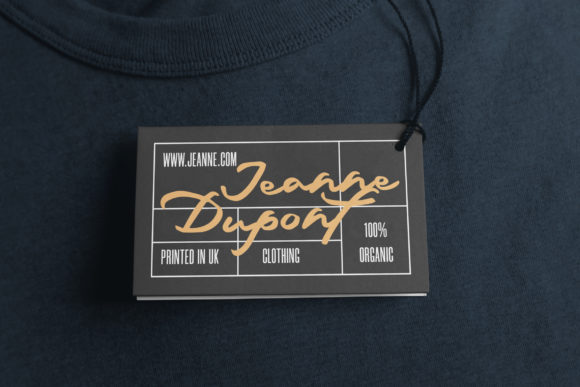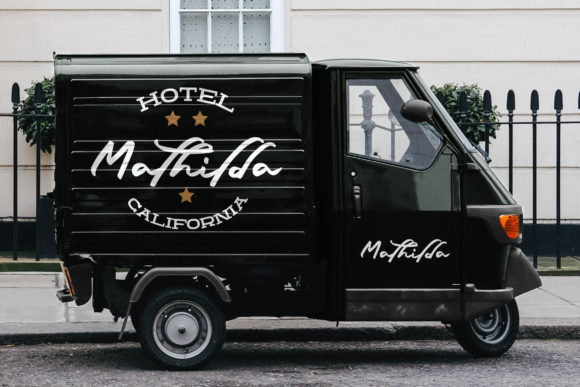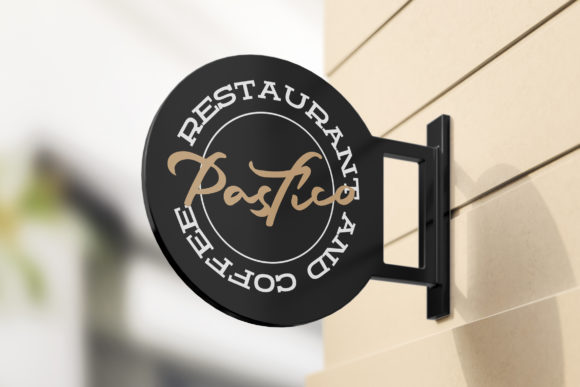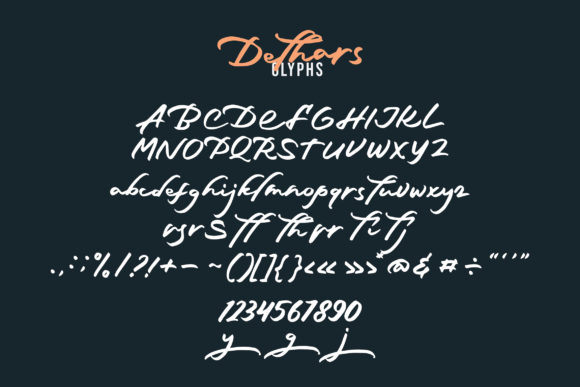
Dethars Font
About Dethars Font
Dethars is a flowing and relaxed handwritten font. It looks stunning on wedding invitations, thank you cards, quotes, greeting cards, logos, business cards and every other design which needs a handwritten touch.